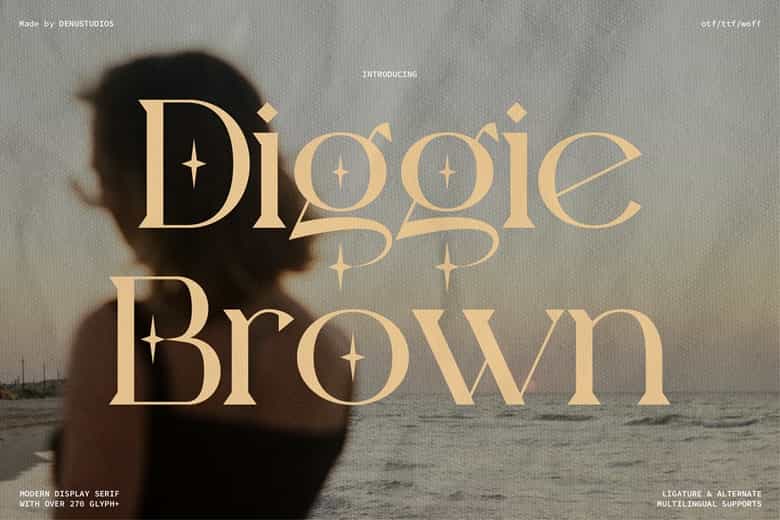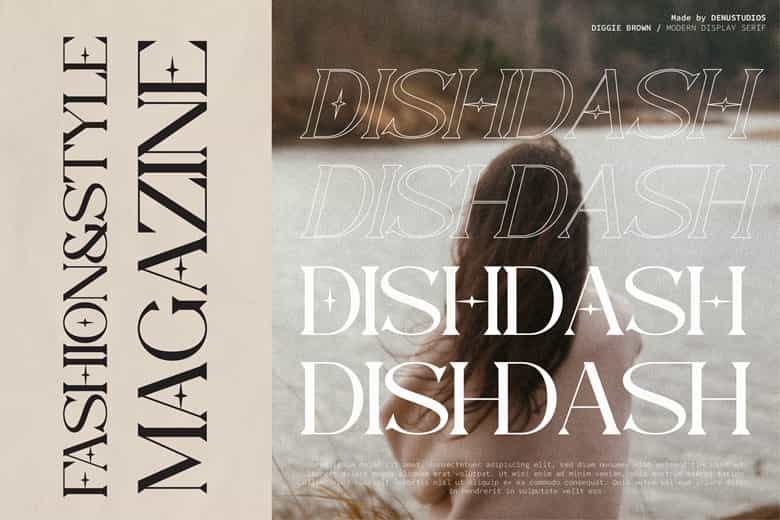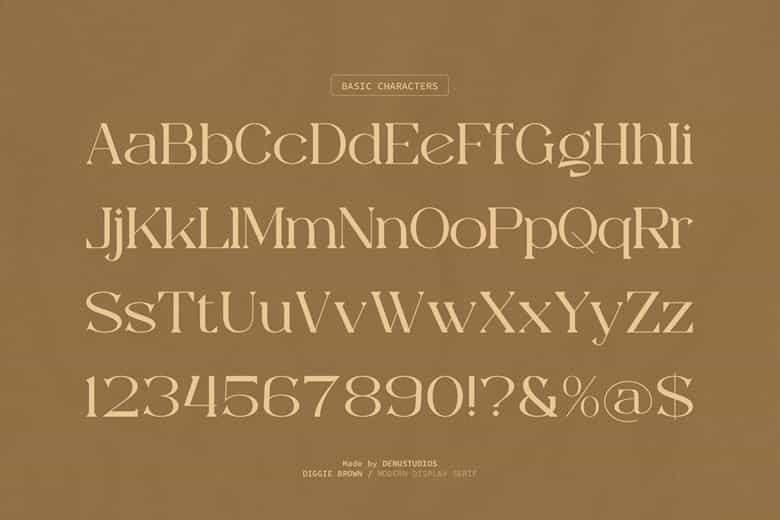
Diggie Brown is a new display serif typeface with a touch of classical taste, and unique contrast of ligatures. With more than 270 glyphs including multilingual support, it’s a great choice for elegant branding, wedding invitations, high end fashion and editorial.